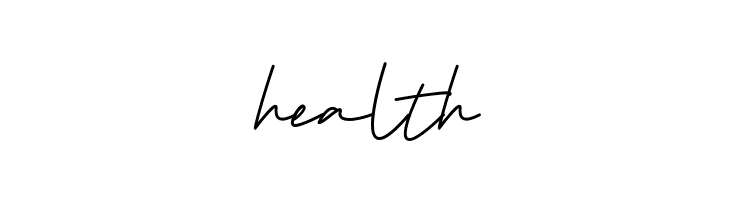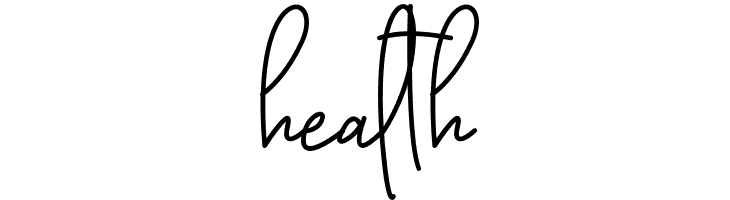
AustinPen Font
A dynamic and expressive handwritten font with fluid strokes and artistic flair.
Nebbulla Font
A playful, handwritten font with tall, narrow letters and a casual, dynamic style.
High Amelliya Font
A bold, elegant script font with flowing, interconnected characters.
Drop Stay Font
A cursive, modern font with flowing, interconnected letters and a light, airy feel.
AtlanticTime Font
A bold, flowing script font with elegant, cursive letterforms and a slight slant.
Sebastian Signature Font
A fluid, handwritten-style font with a personal and expressive touch.
Cattclay Font
A casual, handwritten font with a light and fluid style.
Haklam Font
A fluid and elegant handwritten script with seamless letter connections.
Emmaverp Font
A casual, handwritten-style font with fluid, connected strokes.
Antilkat Font
A modern, handwritten font with a casual and dynamic style.
Aintonio Font
A dynamic and expressive handwritten font with fluid, cursive strokes.
Calingham Font
An elegant, cursive font with flowing, decorative strokes.